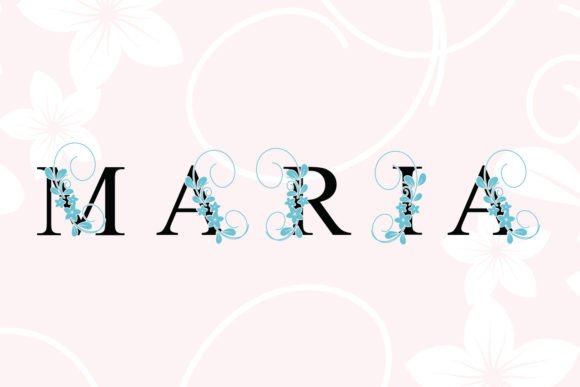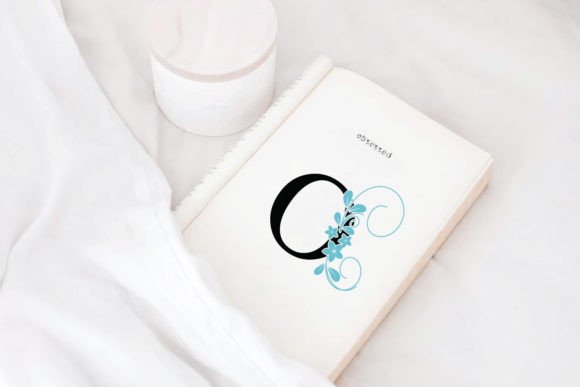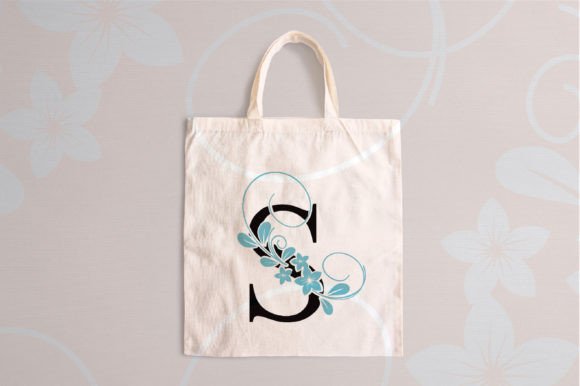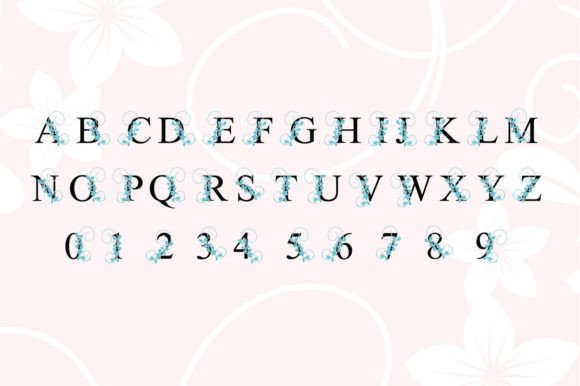
Introduction to Flowerina Font
Have you ever found yourself staring at a blank canvas, struggling to bring your creative vision to life? As designers, we’ve all been there – the blank page, the endless possibilities, and the pressure to deliver a masterpiece. But what if you had the perfect tool to help you break through that creative barrier? Enter the Flowerina Font, a stunning and elegant monogram decorative font that’s about to revolutionize your design projects.
Key Features of Flowerina Font
- High-quality, intricate design with a transparent background, making it ideal for creative projects and design resources.
- Includes a wide range of characters, including uppercase and lowercase letters, numbers, and special symbols, making it a versatile design resource.
- Features a unique, floral-inspired design that adds a touch of elegance and sophistication to any creative project.
- Available in a single size, making it easy to use in various design contexts, from small text to large headings.
- Perfect for designers, artists, and creatives working on projects that require a delicate and intricate touch, such as invitations, greeting cards, and digital art.
Honest Review: Flowerina Font
- ✨ The Flowerina Font is incredibly versatile and can be used for a wide range of design projects, from digital to print.
- ✨ The transparent background option allows for seamless integration with other design elements.
- ⚠️ The font may not be suitable for projects that require a high level of customizability, as it’s primarily designed for general use.
- ⚠️ Some users may find the font’s design a bit too playful or cursive, which may not be suitable for all design projects.
Tips for Getting the Most Out of Flowerina Font
To get the most out of the Flowerina Font, experiment with different font sizes, colors, and combinations. Use the font in conjunction with other design elements to create a cohesive and visually appealing design.
The Flowerina Font is ideal for creative projects such as wedding invitations, baby shower decorations, and other special occasion designs. It’s also great for designing digital products, such as e-books and websites.